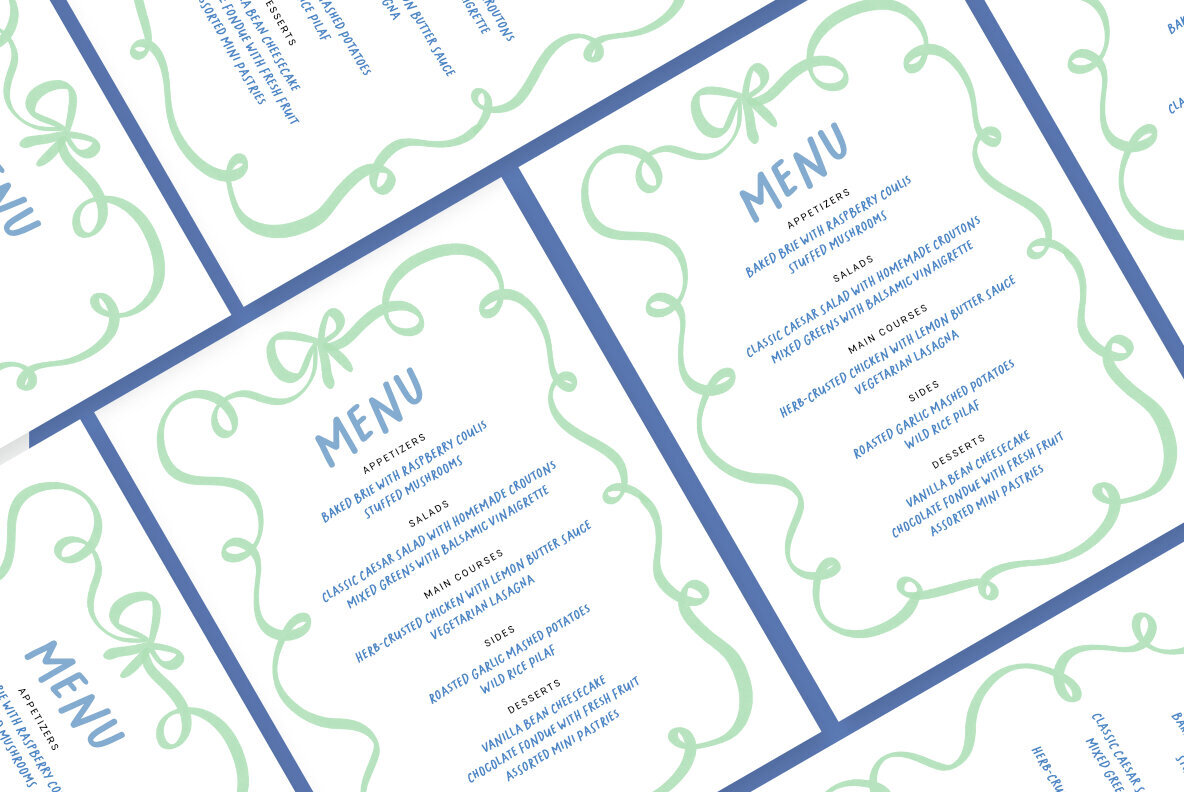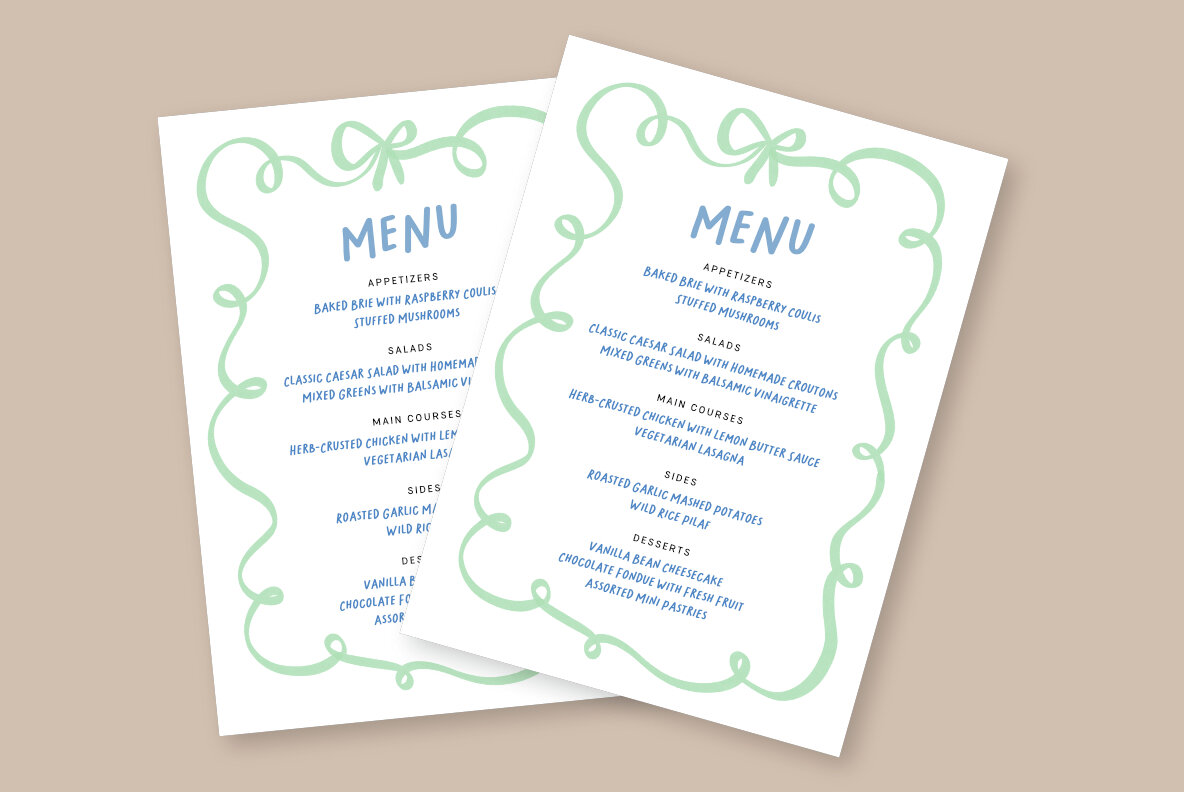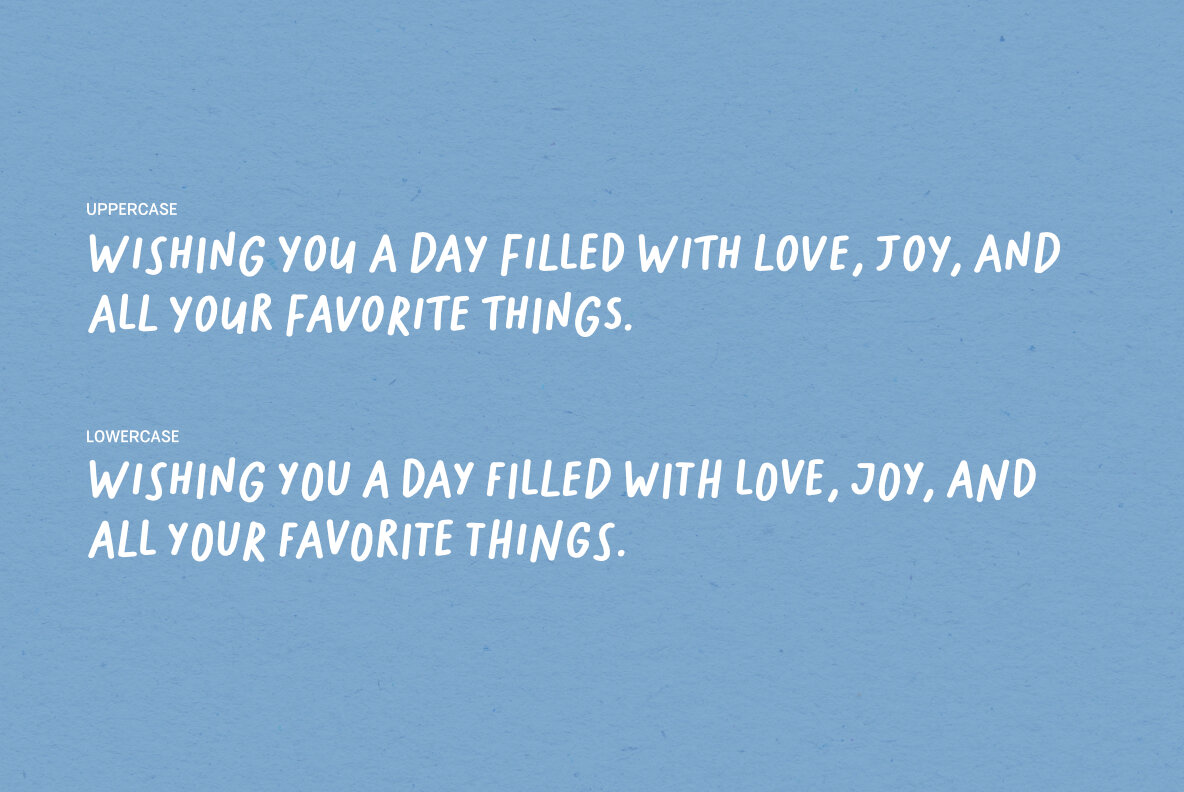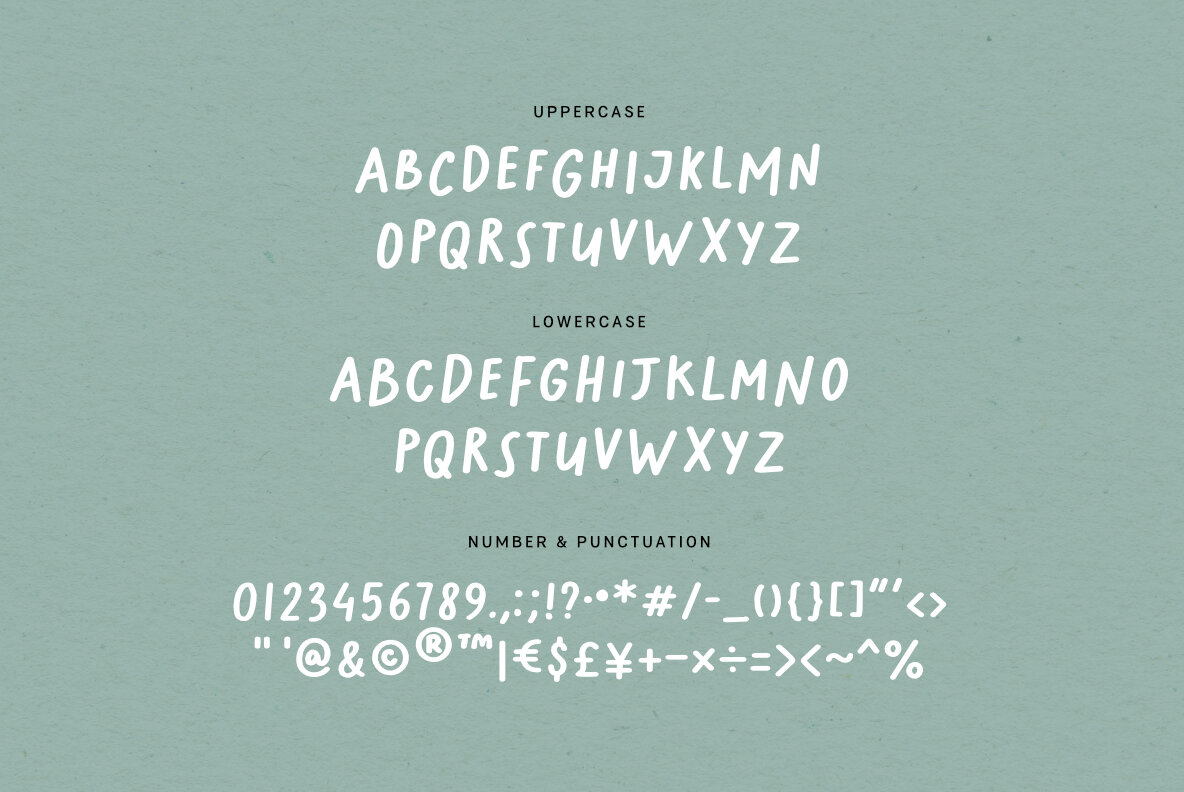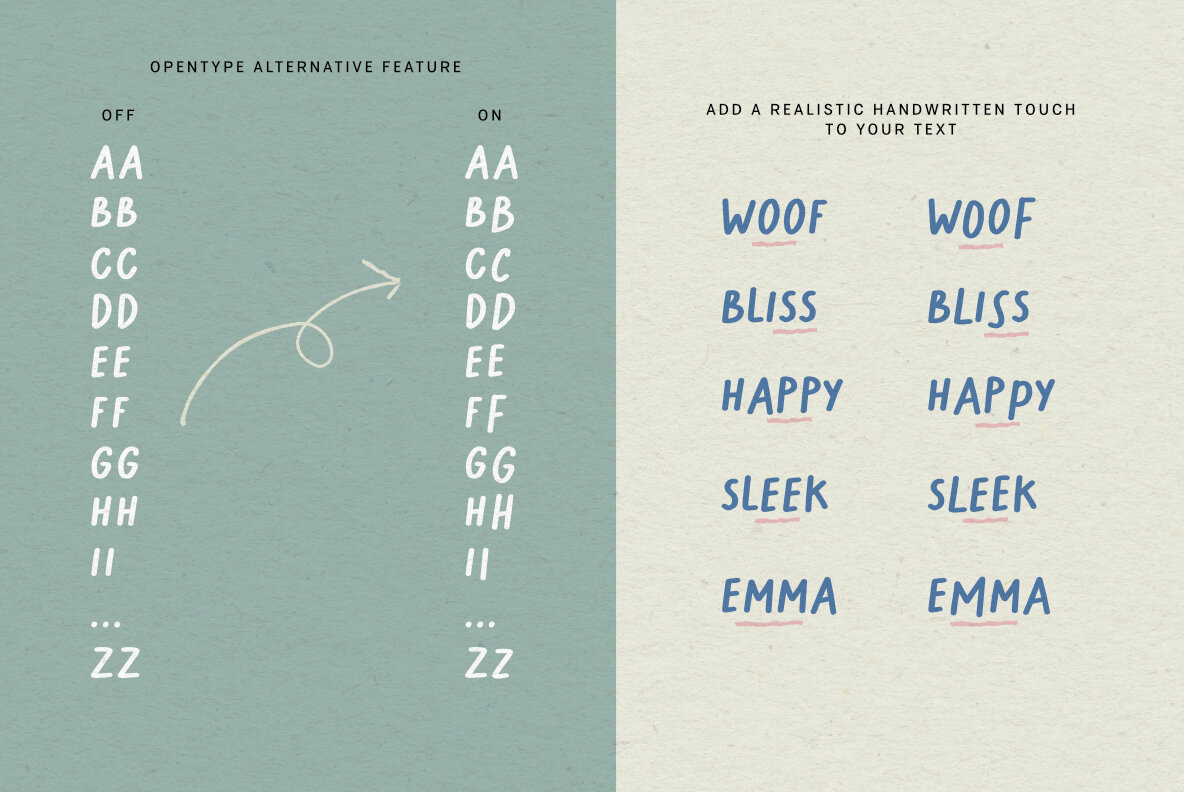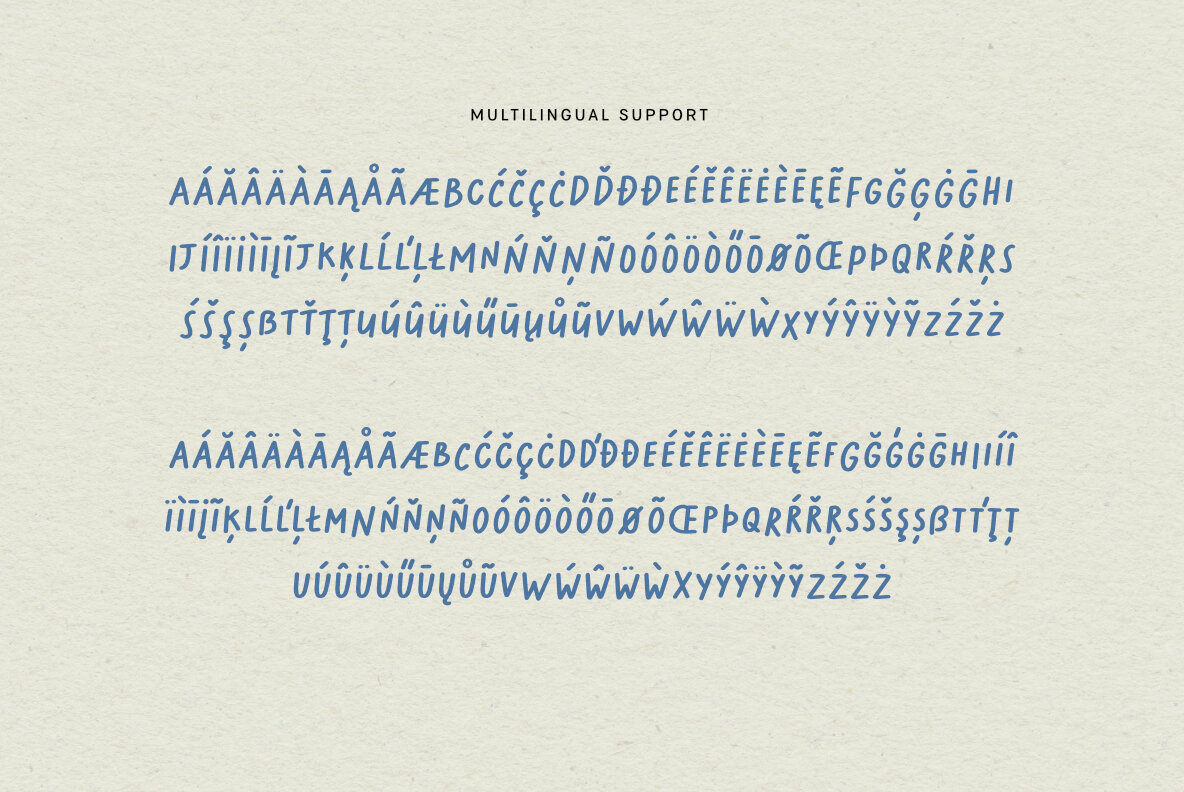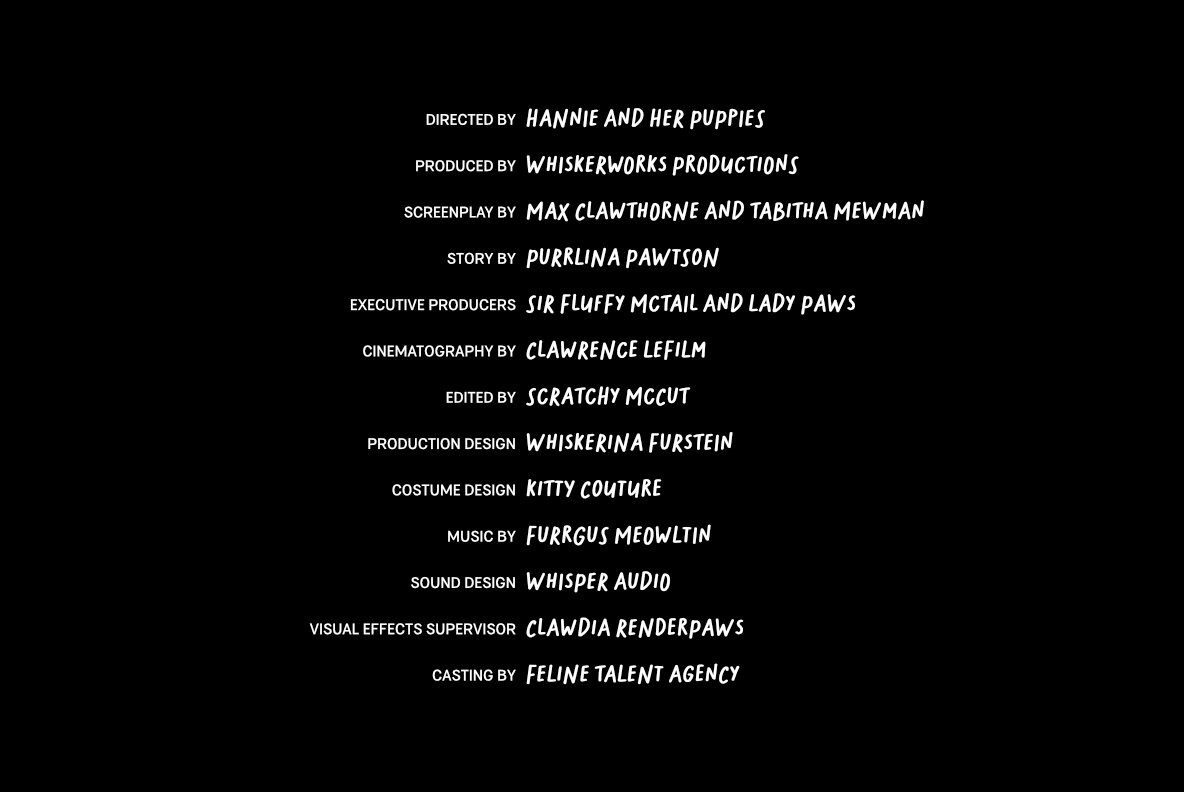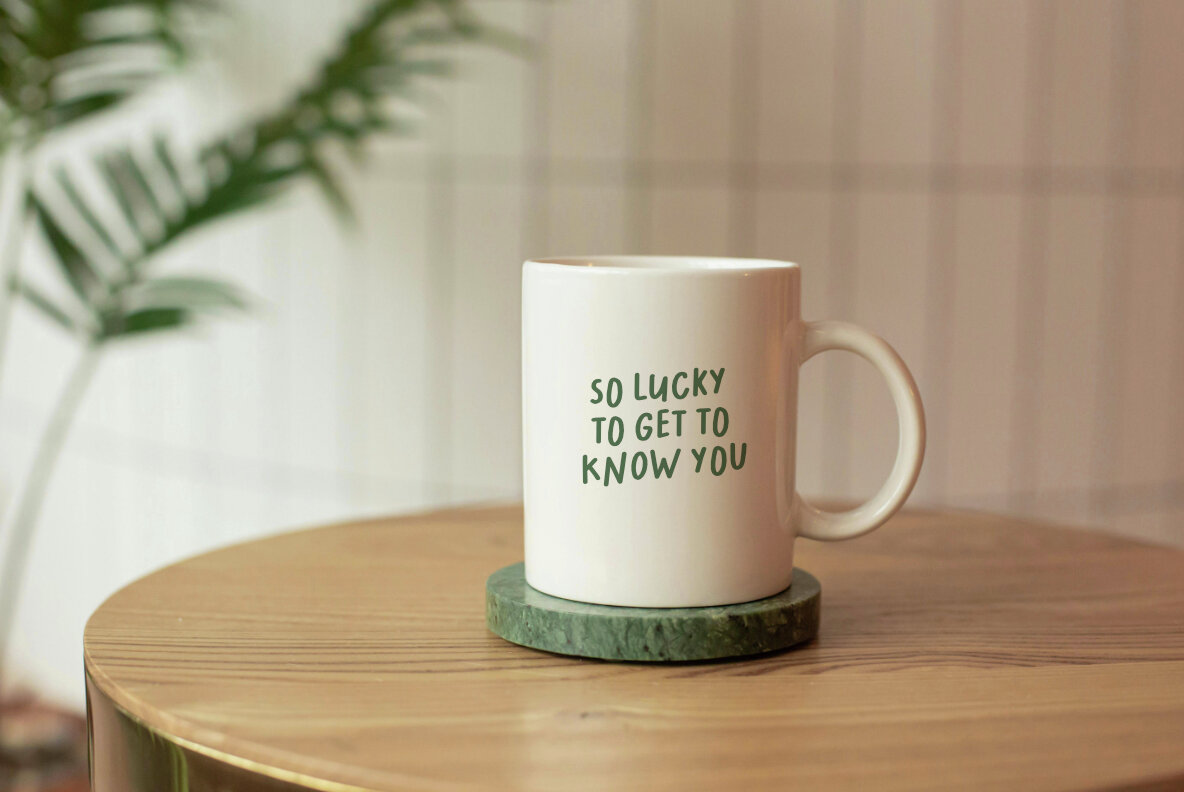
Softie Marker Font
Softie Marker Regular
Softie Marker is a friendly and playful all-caps handwritten font with rounded and chunky letterforms, perfect for bringing a casual and approachable vibe to your projects. Ideal for fun branding, children's book covers, and social media graphics. Add a light-hearted touch to any design with this expressive and natural typeface. Font features: